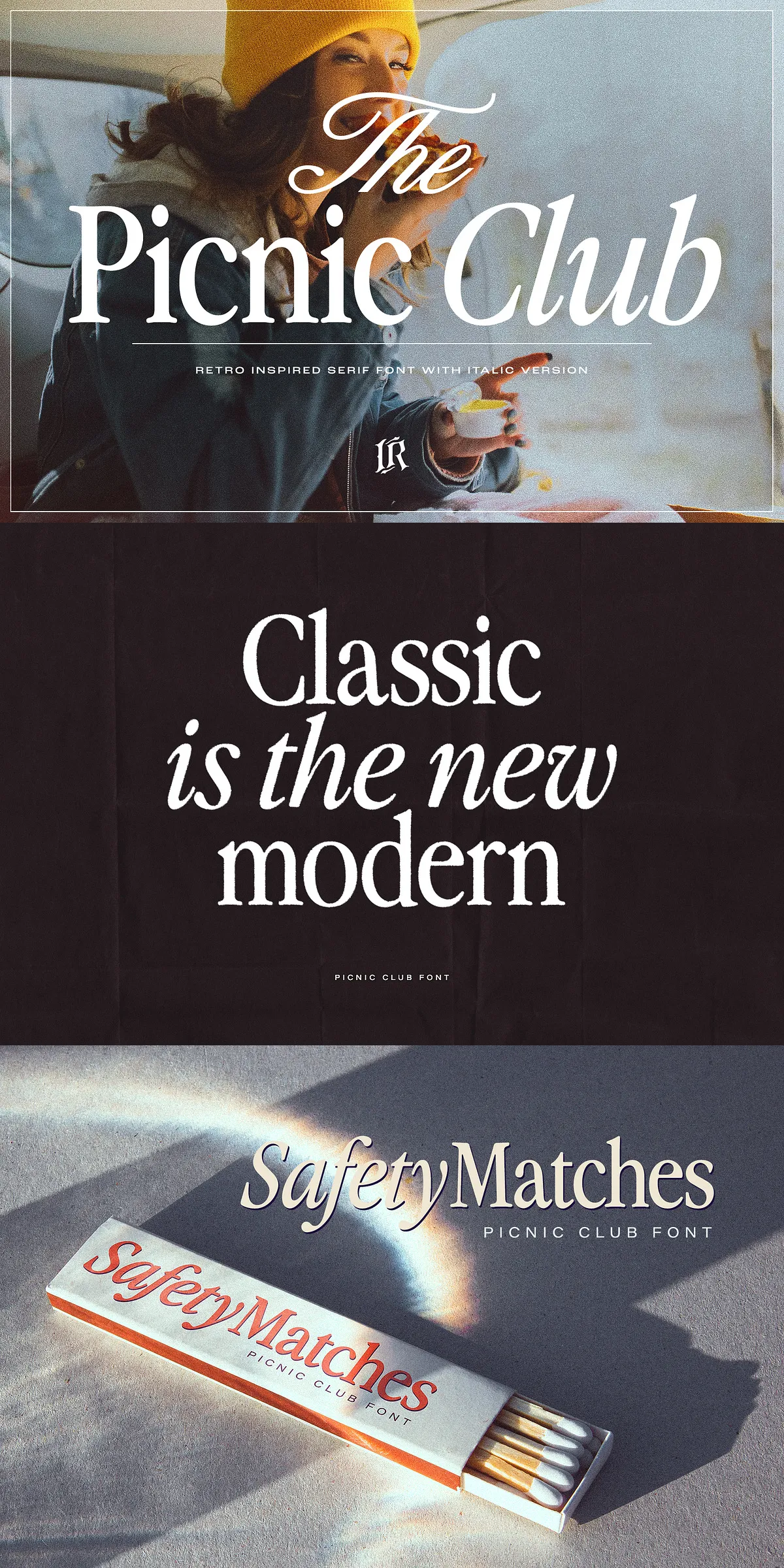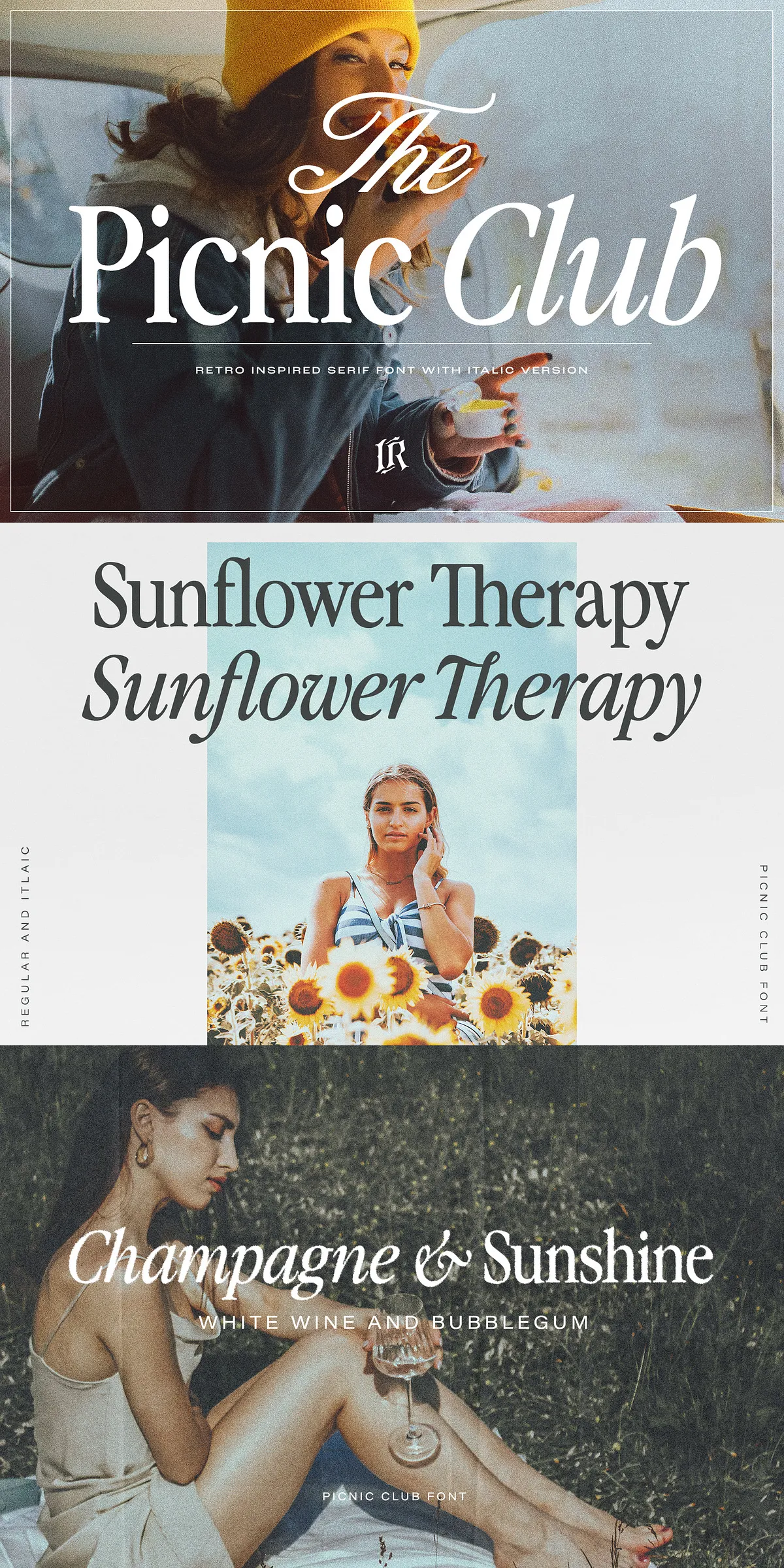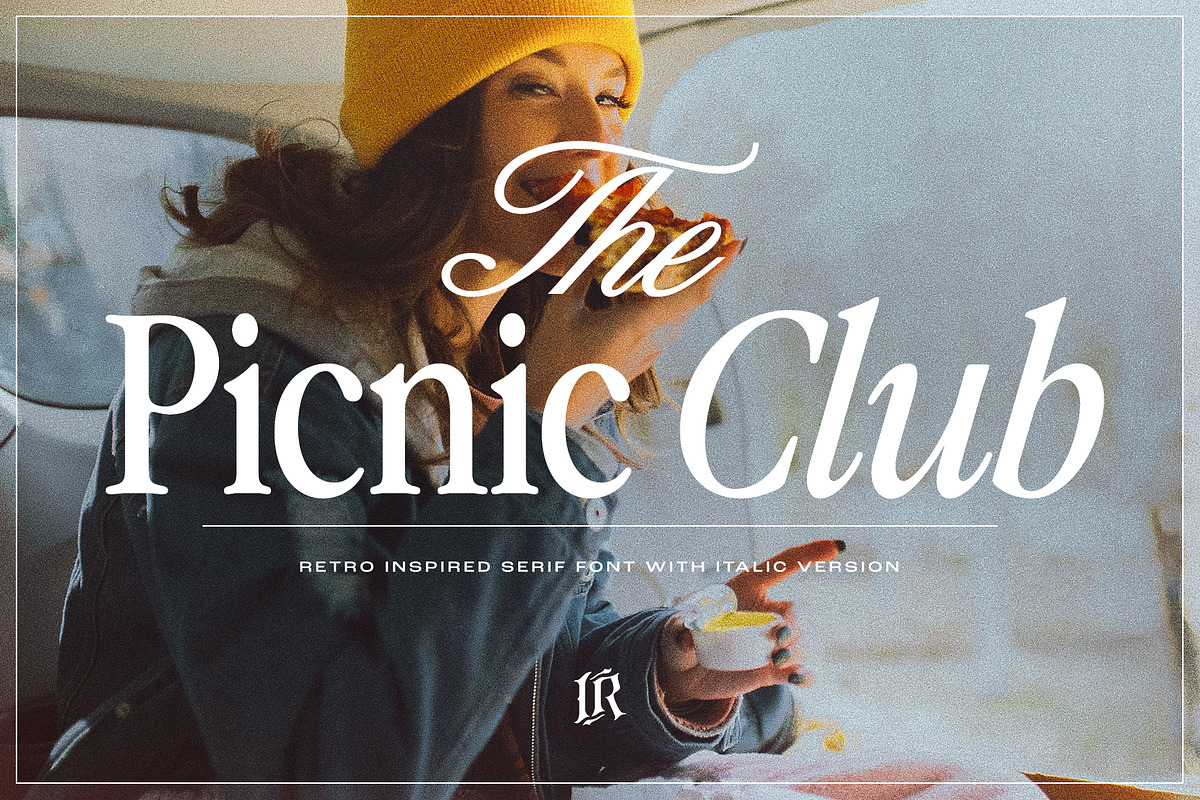
The Picnic Club type family expands its nostalgic charm with an exciting new release that includes eight additional weights and a brand-new script font designed to perfectly complement the original serif. This comprehensive font family captures the groovy 80’s vibe while infusing a fresh modern touch, making it an exceptional choice for designers seeking to blend vintage style with contemporary usability.
Picnic Club – Nostalgic Serif: A Stylish Vintage Display Font
At the heart of the Picnic Club family lies the Nostalgic Serif, a display font crafted to evoke the spirit of the 1980s with its groovy yet refined aesthetic. This serif font shines at large display sizes, making it ideal for headlines, titles, and short text elements that demand attention. Despite its vintage inspiration, the font maintains excellent readability even at smaller text sizes, ensuring versatility across various design applications.
The Nostalgic Serif is available in two distinct styles: Regular and Italic. This duality allows designers to introduce subtle emphasis and variation within their typography, enhancing visual interest and hierarchy. Whether you are working on branding, packaging, editorial layouts, or vintage mood boards, Picnic Club’s serif font delivers a stylish and memorable presence.
New Script Font: A Perfect Complement
Alongside the serif, the Picnic Club family now includes a brand-new script font that harmonizes beautifully with the vintage serif. This script adds a dynamic, handwritten flair that balances the structured elegance of the serif, offering designers a broader creative palette. The script font is ideal for adding personality and warmth to logos, invitations, and other design elements where a touch of casual sophistication is desired.
Extensive Language Support and Advanced Features
One of Picnic Club’s standout qualities is its extensive multilingual support. The font family covers a vast array of languages, including but not limited to European, African, Asian, and Indigenous languages, making it a truly global typeface. This broad language coverage ensures that your designs can communicate effectively and inclusively across diverse audiences.
Picnic Club also offers advanced typographic features to enhance your design workflow. Stylistic alternates are accessible through software with glyph panels such as Adobe Photoshop and Illustrator, allowing you to customize letterforms and add unique stylistic touches. Additionally, ligatures are supported without the need for special software, enabling smooth and natural letter connections that improve the overall flow and readability of your text.
Ideal Use Cases for the Picnic Club Type Family
The Picnic Club font family is designed with versatility in mind, making it suitable for a wide range of creative projects. Some of the most effective applications include:
- Advertising and Branding: Create eye-catching logos and brand identities that evoke nostalgia while remaining fresh and modern.
- Vintage Mood Boards: Use the font to set the tone for retro-inspired design concepts and presentations.
- Packaging Design: Enhance product packaging with stylish typography that stands out on shelves.
- Editorial Design: Craft compelling magazine layouts, posters, and headlines that demand attention.
- Titles and Headlines: Make your headlines pop with the font’s strong display presence and legibility.
To unlock the full potential of Picnic Club, use design software that supports glyph panels to access stylistic alternates and customize your typography. Programs like Adobe Photoshop and Illustrator provide easy access to these features, allowing you to experiment with different letterforms and create unique typographic expressions.